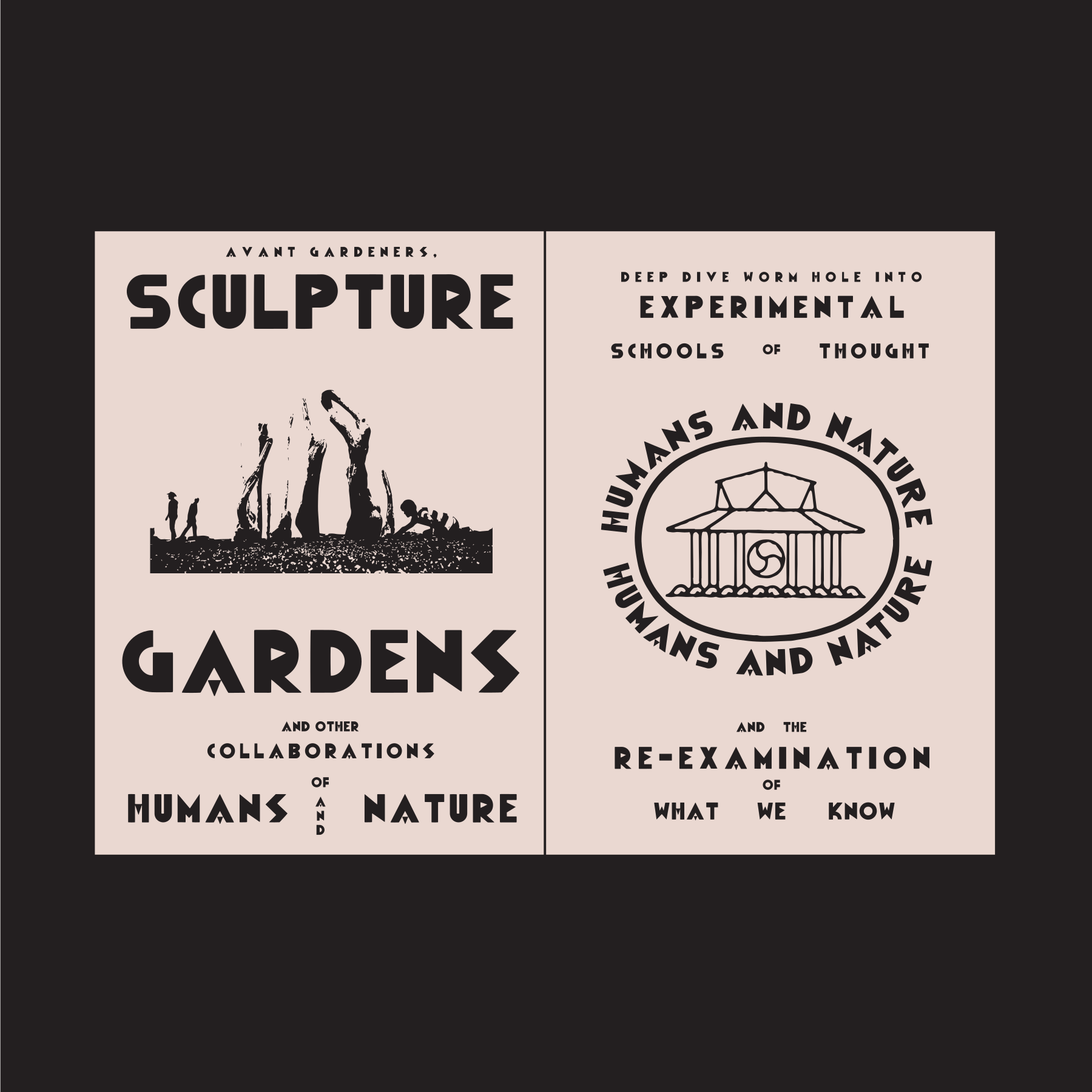
Futurista
Heavily inspired by Italian futurist extraordinaire Fortunato Depero. Since the first time we ever laid eyes on his original works, a seed of inspiration was planted in our subconscious that will forever be rooted. His hand-cut lettering styles and layouts proved that art and commerce can happily intermingle. There is an undeniable playful spirit in the letterforms that zip us back to early childhood, where play comes first, ease of legibility second. Luckily for us, we can have both.